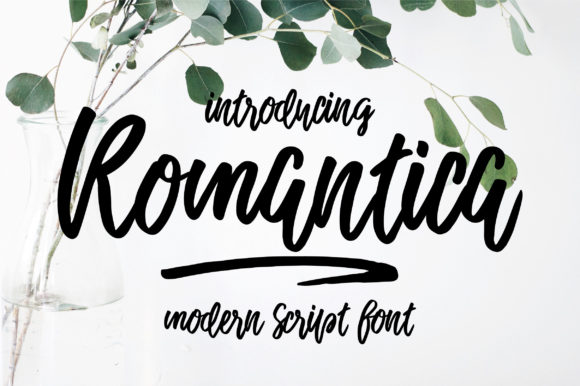
The Rise of Romantica Script: A Modern Font for a Feminine Future
In the ever-evolving world of design and branding, typography plays a pivotal role in shaping identity, emotion, and perception. Among the many fonts that have emerged in recent years, Romantica Script stands out as a modern script font that blends elegance with contemporary appeal. Designed to evoke a sense of femininity, grace, and sophistication, Romantica Script has captured the attention of professionals, creators, and entrepreneurs across multiple industries.
What is Romantica Script?
Romantica Script is a modern script font that combines the fluidity of traditional calligraphy with the clean, legible structure of modern typography. Its soft curves and elegant strokes create a visual language that feels both timeless and fresh. The font is designed to be versatile, suitable for a wide range of applications—from branding and packaging to digital media and social content.
Unlike more rigid sans-serif or serif fonts, Romantica Script offers a dynamic and expressive aesthetic that can convey warmth, intimacy, and creativity. It is particularly well-suited for use in titles, quotes, and promotional materials where emotional resonance is key.
Why Romantica Script Matters in Today’s Market
In an era where consumers are increasingly drawn to brands that reflect their values and aesthetics, typography has become a powerful tool for storytelling and differentiation. Romantica Script aligns perfectly with this trend by offering a visually compelling alternative to more common fonts.
Consider the growing influence of lifestyle and wellness brands, which often emphasize authenticity, mindfulness, and personal expression. These brands are using typography like Romantica Script to create a more intimate and emotionally engaging experience for their audience. By choosing a font that exudes elegance and femininity, they are able to connect with their target demographic on a deeper level.
Industry Trends and Consumer Preferences
As the creative and marketing industries continue to evolve, there is a clear shift toward more personalized and emotionally resonant content. This has led to an increased demand for fonts that can convey personality and character without being overly stylized or difficult to read.
Romantica Script fits into this trend by offering a balance between artistic flair and readability. It is not just a decorative choice—it is a strategic one. Brands and designers are recognizing that the right font can enhance brand recognition, improve user engagement, and even influence consumer behavior.
Practical Applications of Romantica Script
Whether you're a freelancer looking to stand out in a competitive market or a business owner aiming to elevate your brand's visual identity, Romantica Script offers a range of practical benefits:
One notable example is its use in lifestyle and fashion brands that aim to project a sense of refinement and exclusivity. These brands leverage the font’s feminine and elegant qualities to build a strong emotional connection with their audience.
How Romantica Script Reflects Broader Creative Shifts
Romantica Script is more than just a font—it represents a broader cultural and creative movement. As consumers become more discerning and brands seek to differentiate themselves through unique visual identities, the demand for distinctive yet accessible typography is on the rise.
This shift is also influenced by technological advancements in design tools and platforms. With the availability of intuitive design software and online font libraries, creators now have greater access to a wider range of typographic options. This democratization of design has made it easier for individuals and small businesses to experiment with fonts like Romantica Script and incorporate them into their work with ease.
The Role of Emotional Design in Typography
Typography is no longer just about function—it's about emotion. In today’s fast-paced digital landscape, people are constantly bombarded with information, and the ability to stand out visually is crucial. Fonts like Romantica Script help achieve this by evoking specific feelings and associations.
The elegance and femininity of Romantica Script make it particularly effective in industries such as beauty, fashion, and wellness. These sectors are known for their focus on aesthetics and emotional appeal, and the right font can reinforce these values in a subtle yet powerful way.
Conclusion: Embracing the Future of Typography
Romantica Script is more than a design choice—it is a reflection of evolving trends in branding, marketing, and consumer expectations. As the creative industry continues to prioritize personalization, emotional resonance, and visual storytelling, fonts like Romantica Script will play an increasingly important role in shaping the future of design.